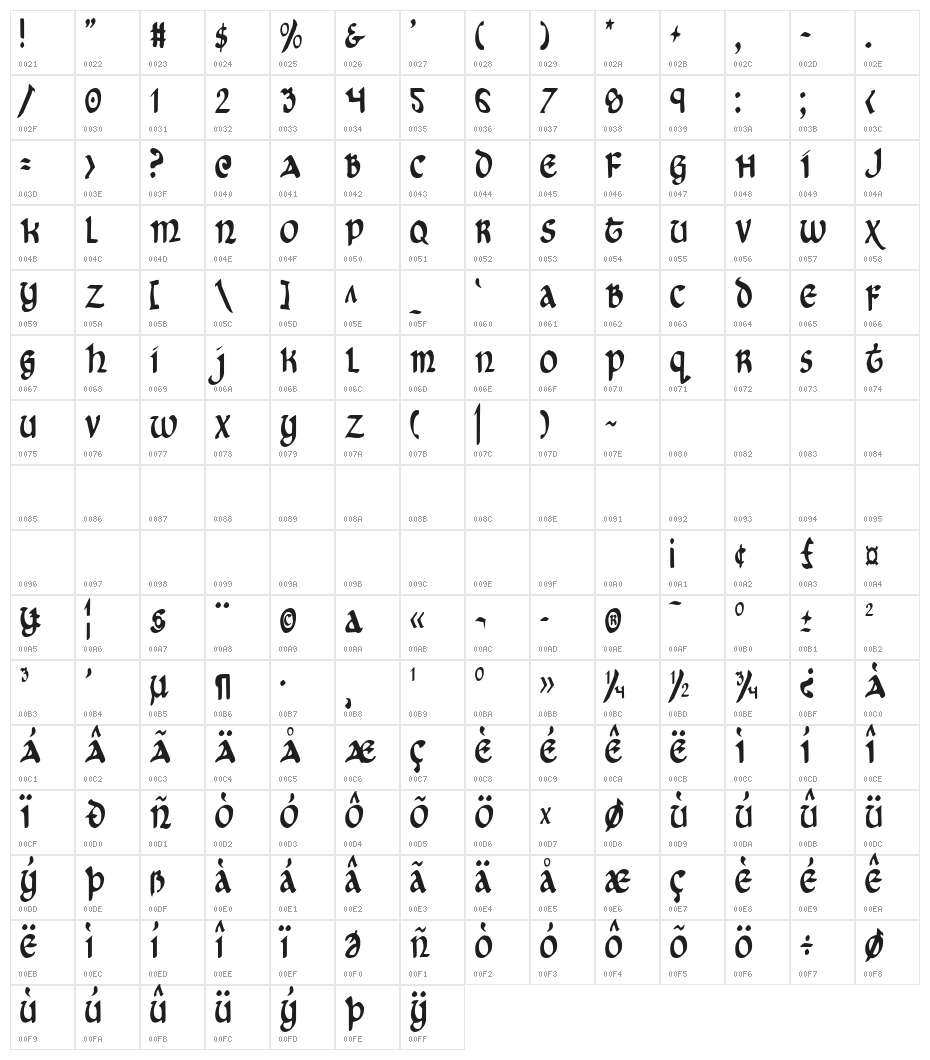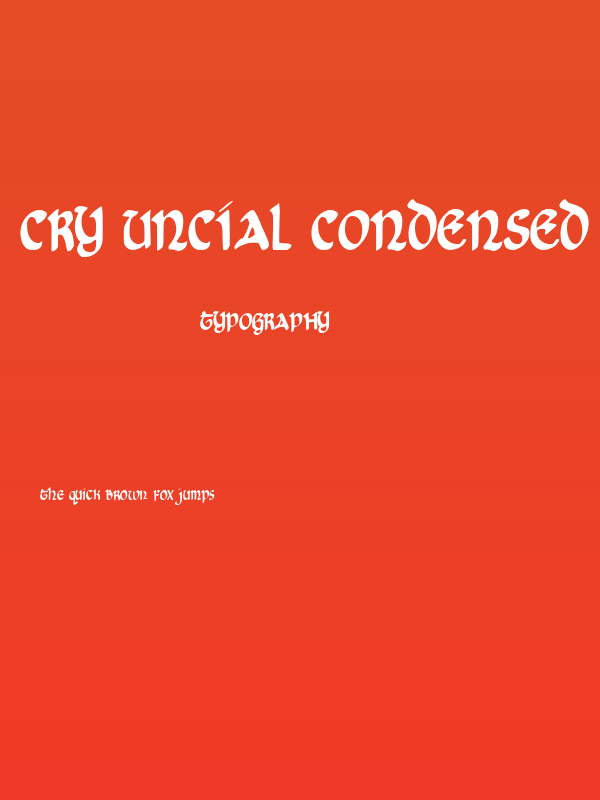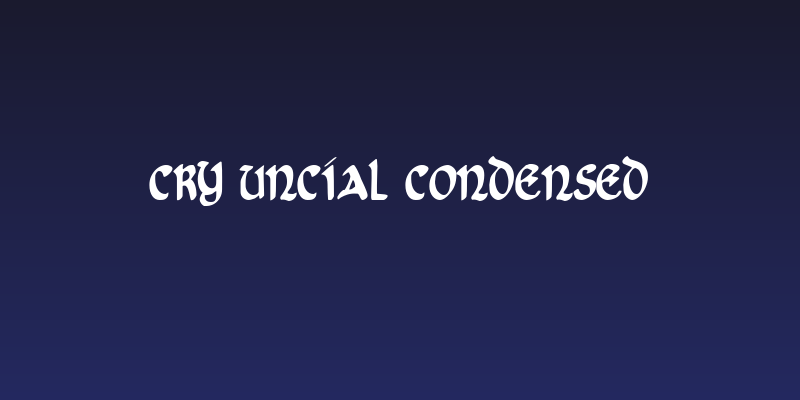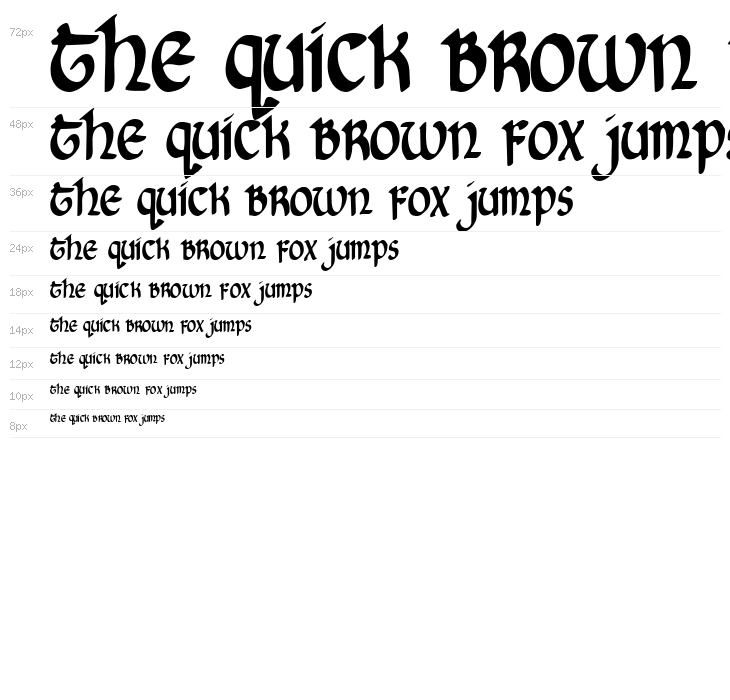
Cry Uncial Condensed Font
Cry Uncial Condensed Description
This font features a unique blend of traditional and modern elements, characterized by its bold, condensed letterforms that evoke a sense of historical elegance. The characters are designed with a distinct uncial style, showcasing rounded and angular strokes that create a dynamic visual rhythm. The uppercase and lowercase letters maintain a consistent height, contributing to a cohesive appearance. The numerals and special characters are crafted with the same attention to detail, ensuring uniformity across the typeface. This font's bold presence makes it suitable for impactful designs, while its condensed nature allows for efficient use of space.